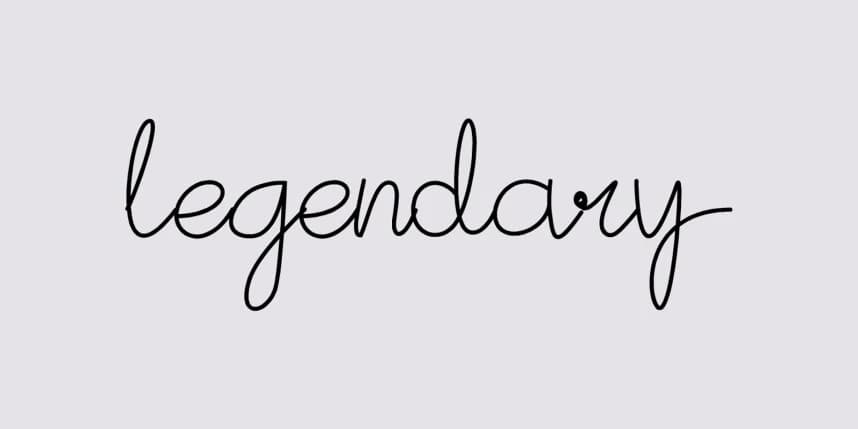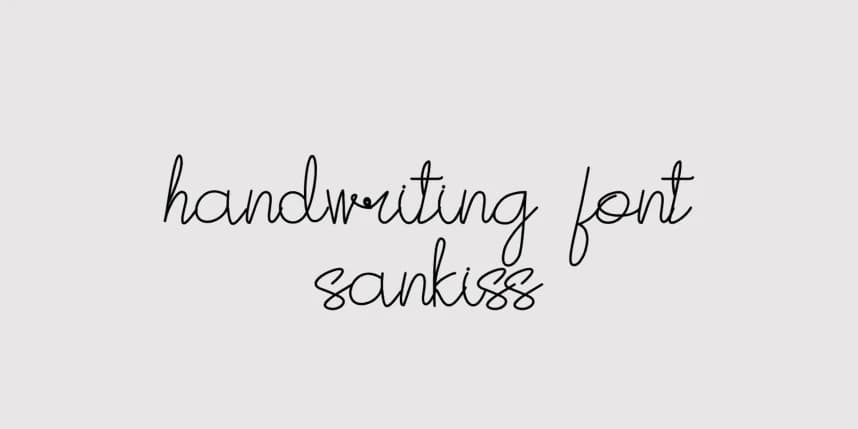
Sankiss Handwritten Font
Sankiss Handwritten Font is a modern typeface characterized by its elegant and casual style, often used in designs that aim to convey a soft and feminine touch. Its signature feature is the smooth, curved strokes resembling handwritten lettering